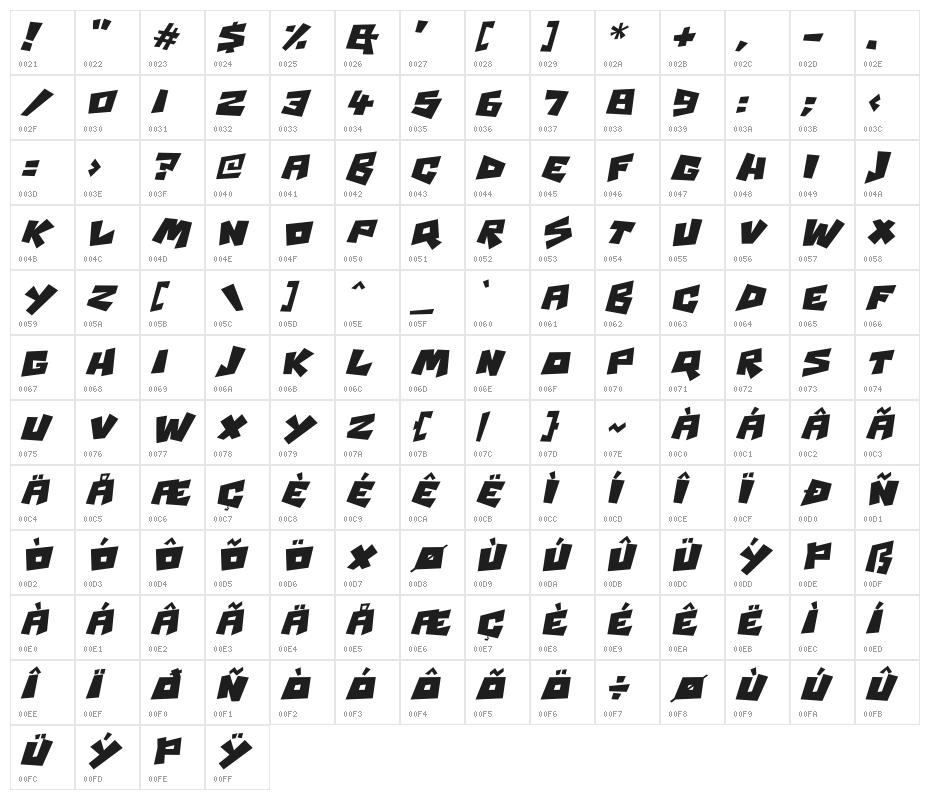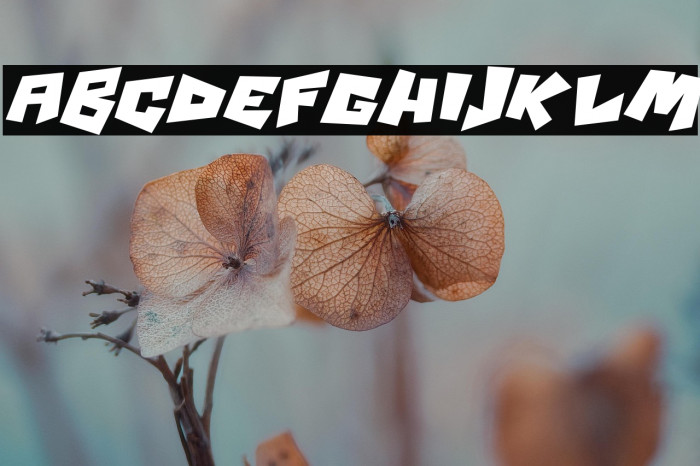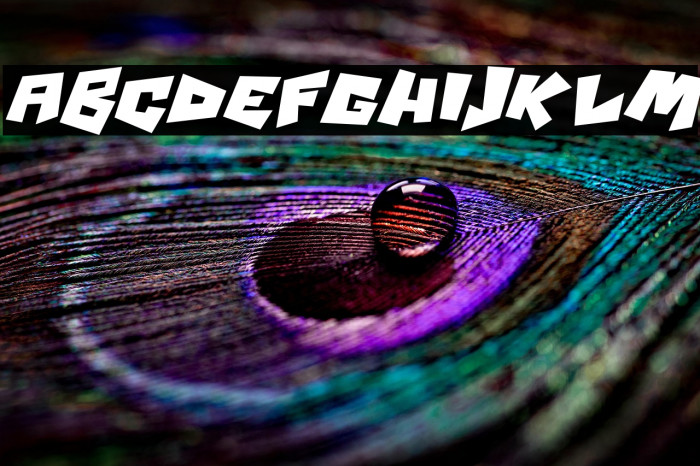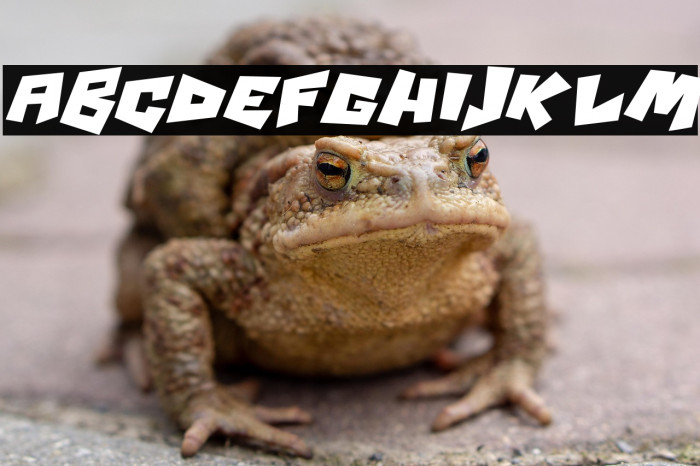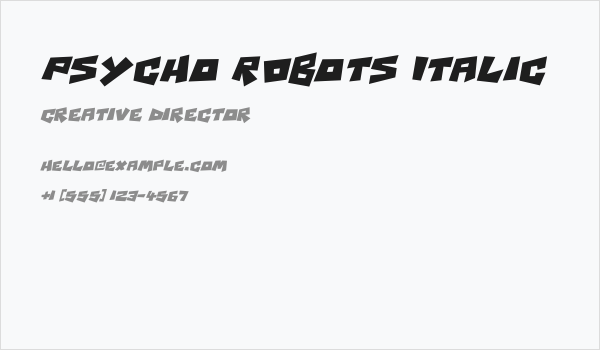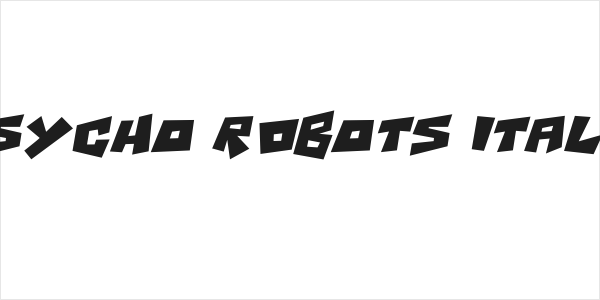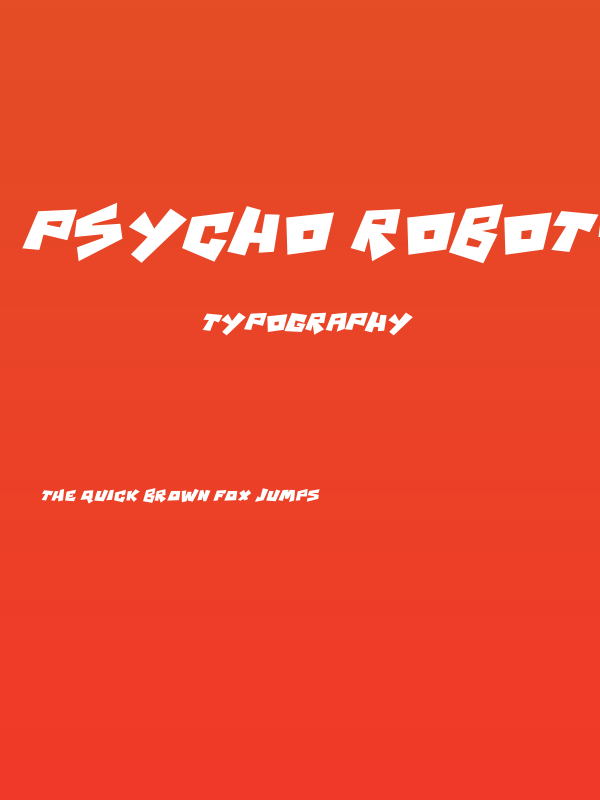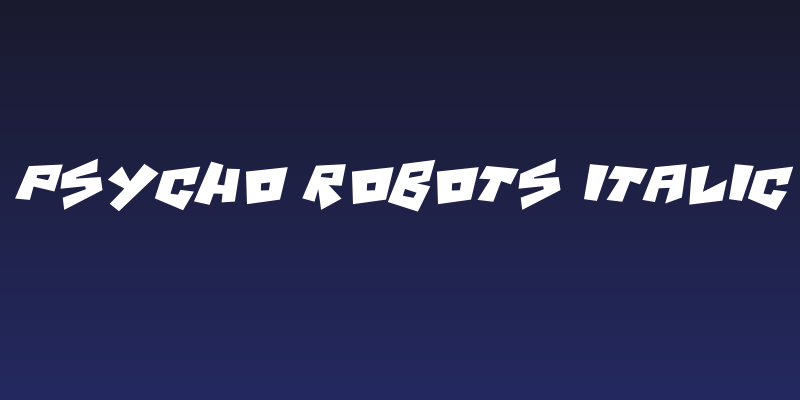
Psycho RObots Italic Font
| Kategorien | Cartoon |
| Gesamtstil | Futuristic, Edgy, Dynamic |
| Vorgeschlagene Projekte | Ideal for video game titles, sci-fi movie posters, edgy branding, and tech-inspired designs. |